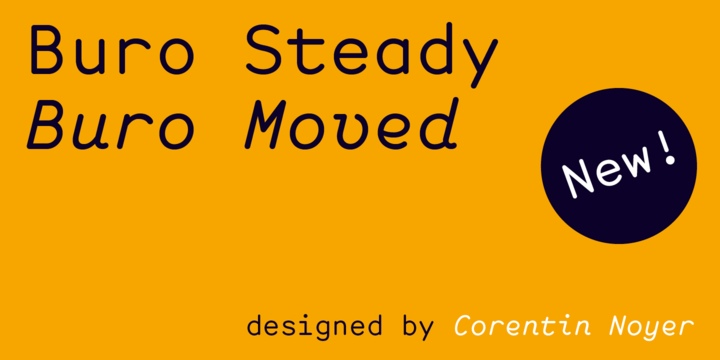
Buro Font
Buro Font is perfect for corporate office branding, business consulting logos, professional service firms, administrative communication design, modern workplace signage, executive presentation graphics, bureaucratic documentation, and streamlined business communications.
What makes Buro Font exciting is its professional efficiency that embodies systematic organization and administrative excellence with corporate precision and bureaucratic reliability. The font features structured letterforms with office-optimized proportions and administrative character that evoke filing systems, executive decisions, and the methodical efficiency of professional workplace operations and corporate governance. Its distinctive office styling and bureaucratic appeal communicate competence, organization, and systematic excellence, making every message feel processed with professional precision and managed by the systematic efficiency of corporate administration and workplace productivity.
The Buro Font family includes regular weight with uppercase and lowercase letters, numerals, punctuation marks, and comprehensive business symbols. Premium versions often feature multiple weights and administrative alternates that enhance the professional, corporate aesthetic perfect for office and business applications.
This efficient corporate typeface brings instant professionalism and administrative credibility to any workplace-focused project. Buro Font Free Download delivers exceptional results for business organizations and professional services seeking to communicate administrative excellence, corporate efficiency, and systematic professionalism to business clients and corporate audiences.
The systematic character of Buro Font makes it particularly valuable for consulting firms, administrative services, and corporate headquarters. Its excellent readability ensures business documentation and corporate communications remain clear while maintaining the distinctive professional aesthetic that appeals to executives seeking reliable administrative solutions and systematic business processes.
Corporate efficiency specialists appreciate how Buro Font effortlessly conveys administrative competence and professional organization. The font's structured proportions and bureaucratic details create reliable business materials that establish trust with audiences who value systematic processes, administrative excellence, and the organized efficiency of professional corporate operations and workplace management.
The versatile professionalism of this typeface extends to government agencies, business process optimization, and corporate training where administrative authenticity enhances institutional credibility and professional appeal. Buro Font Free Download provides creative professionals with an essential tool for developing memorable, efficiency-driven designs that resonate with audiences who embrace systematic organization, professional administration, and the structured precision of corporate workplace excellence in today's business environment.